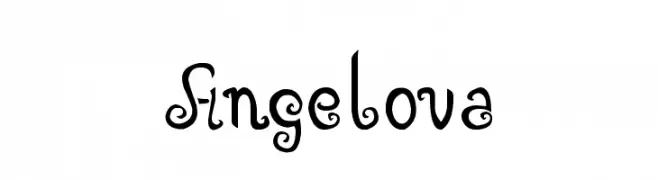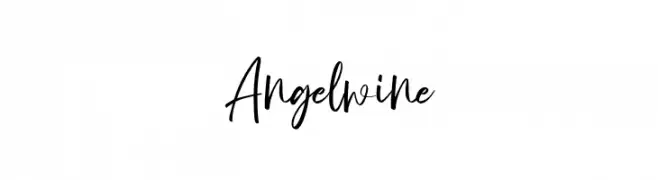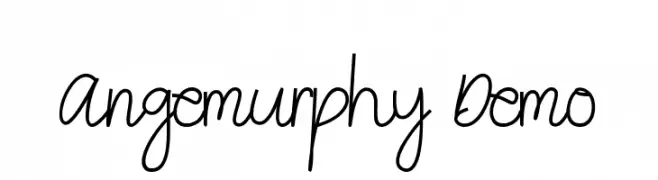
A decorative and ornate font with bold, framed characters ideal for vintage-style projects.
A whimsical and ornate font with curly, decorative letterforms.
A playful, bold font with rounded, bubbly characters ideal for informal designs.
A playful, bold font with rounded strokes and a hand-drawn feel.
A bold, futuristic font with a 3D dotted pattern.
A whimsical dingbat font with illustrated angels and bears.
A modern, handwritten font with fluid, expressive strokes.
A charming and elegant script font with flowing, interconnected letters.
A lively, flowing script font with elegant, connected strokes.